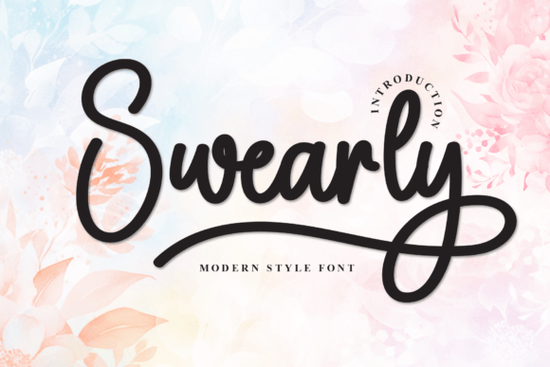
The Swearly Font is a delightful addition to any designer’s or crafter’s collection. With its soft, handwritten style, it brings a sense of warmth and personality to any project. Whether you're working on wedding invitations, greeting cards, or branding materials, this font adds a touch of charm that's hard to ignore. Its friendly and lively appearance makes it ideal for creative projects that aim to convey emotion and authenticity.
Designed with versatility in mind, the Swearly Font works well across a range of mediums. From digital designs to printed materials, it maintains its unique character. The font’s subtle variations in stroke and spacing give it a natural, handcrafted feel that stands out from more rigid typefaces. This makes it especially appealing for those looking to add a personal touch to their work.
If you're searching for a font that feels like a warm hug, the Swearly Font is worth exploring. It’s perfect for anyone who wants to infuse their designs with a sense of joy and approachability. The font’s design is both playful and professional, making it suitable for a wide range of applications. Whether you're a small business owner, a print-on-demand seller, or a creative hobbyist, this font can help elevate your work without overwhelming it.
What Makes the Swearly Font Stand Out?
The Swearly Font distinguishes itself through its expressive, fluid strokes. Unlike many standard fonts, it doesn’t feel static or lifeless. Instead, it has a dynamic quality that makes it feel more like a personal signature than a generic typeface. This characteristic makes it especially useful for projects that require a human element, such as personalized gifts, social media graphics, or branded content.
One of the key strengths of the Swearly Font is its readability. Despite its cursive style, it remains legible even at smaller sizes. This means you can use it effectively in a variety of contexts, from headers to body text. Its balance between style and functionality ensures that it doesn’t sacrifice clarity for aesthetics.
The font also offers a range of stylistic alternatives, allowing users to choose the look that best fits their project. These variations can be used to create visual interest and prevent repetition in larger designs. This flexibility makes it a valuable tool for designers who want to maintain consistency while still adding a unique flair.
How to Use the Swearly Font in Your Projects
For wedding planners and event designers, the Swearly Font can be a great choice for creating elegant yet personal invitations. Its soft curves and gentle lines evoke a sense of romance and sincerity, making it an excellent fit for special occasions. Pairing it with other complementary fonts can help create a cohesive and visually appealing design.
Crafters and DIY enthusiasts will find the Swearly Font useful for customizing handmade items. Whether you're printing labels, creating scrapbook layouts, or designing SVG files for cutting machines, this font adds a charming, handcrafted feel. It’s also a popular choice for print-on-demand sellers looking to offer unique, personalized products.
Small businesses and entrepreneurs can benefit from using the Swearly Font in branding materials. Its friendly and approachable style can help create a more inviting brand image. It works well for logos, social media posts, and marketing collateral, especially for brands targeting a youthful or creative audience.
Whether you're looking to add a personal touch to your designs or enhance the visual appeal of your projects, the Swearly Font is a versatile and appealing choice. Its unique style and ease of use make it a valuable asset for anyone involved in creative work.
- Try pairing the Swearly Font with a clean sans-serif font for contrast.
- Use it in combination with illustrations or decorative elements for a cohesive look.
- Experiment with different colors to match the tone of your project.
Consider incorporating the Swearly Font into your next design project to see how it can bring a fresh, heartfelt perspective to your work. Its charm and flexibility make it a standout choice for a wide range of creative applications.